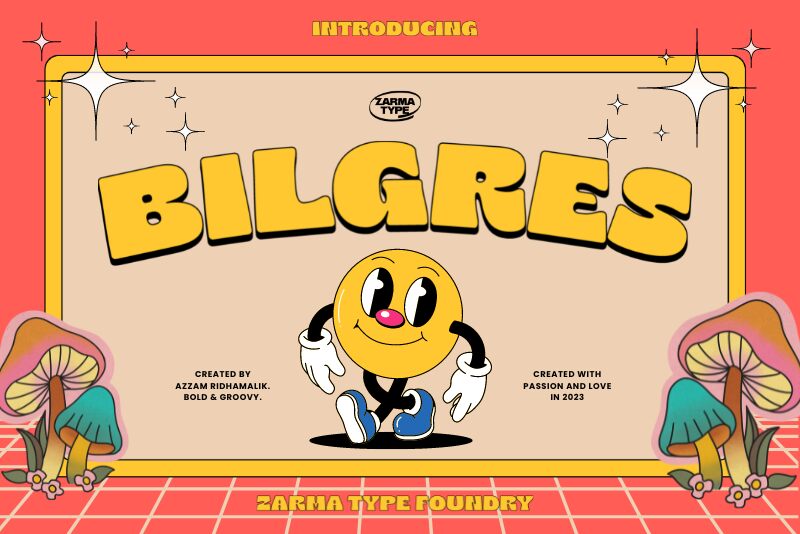
Bilgres font by Zarma Type Foundry is a groovy, modern display font with a playful attitude. The thickening, curves and expansions along the bold letters present a sense of friendliness that’s casual but well-mannered. Instantly recognizable and magnetic, this free font is the design solution to various issues for which other display fonts were not enough.
Use Bilgres in logotypes and branding elements where audience recall is crucial. Used in signage, packaging, or advertising campaigns, it will surely attract attention to itself while staying on brand.